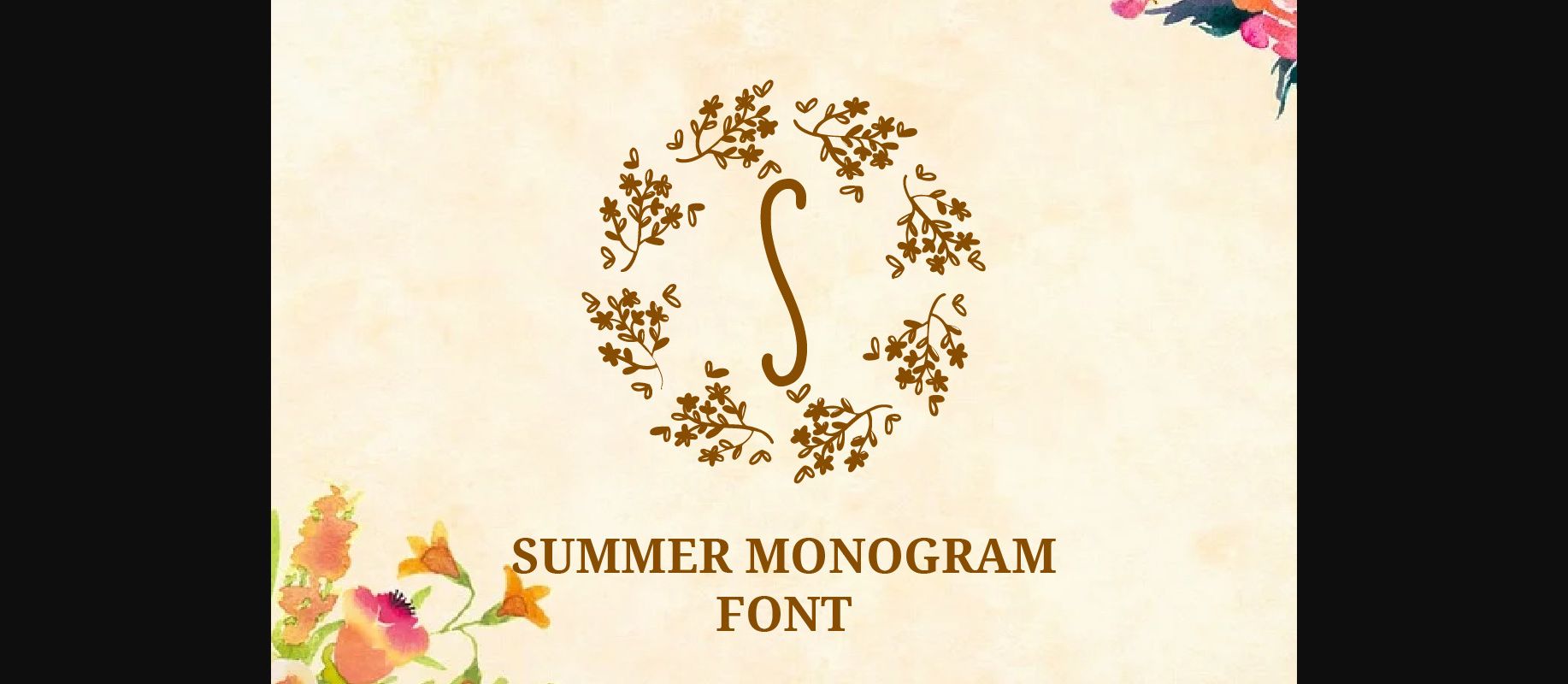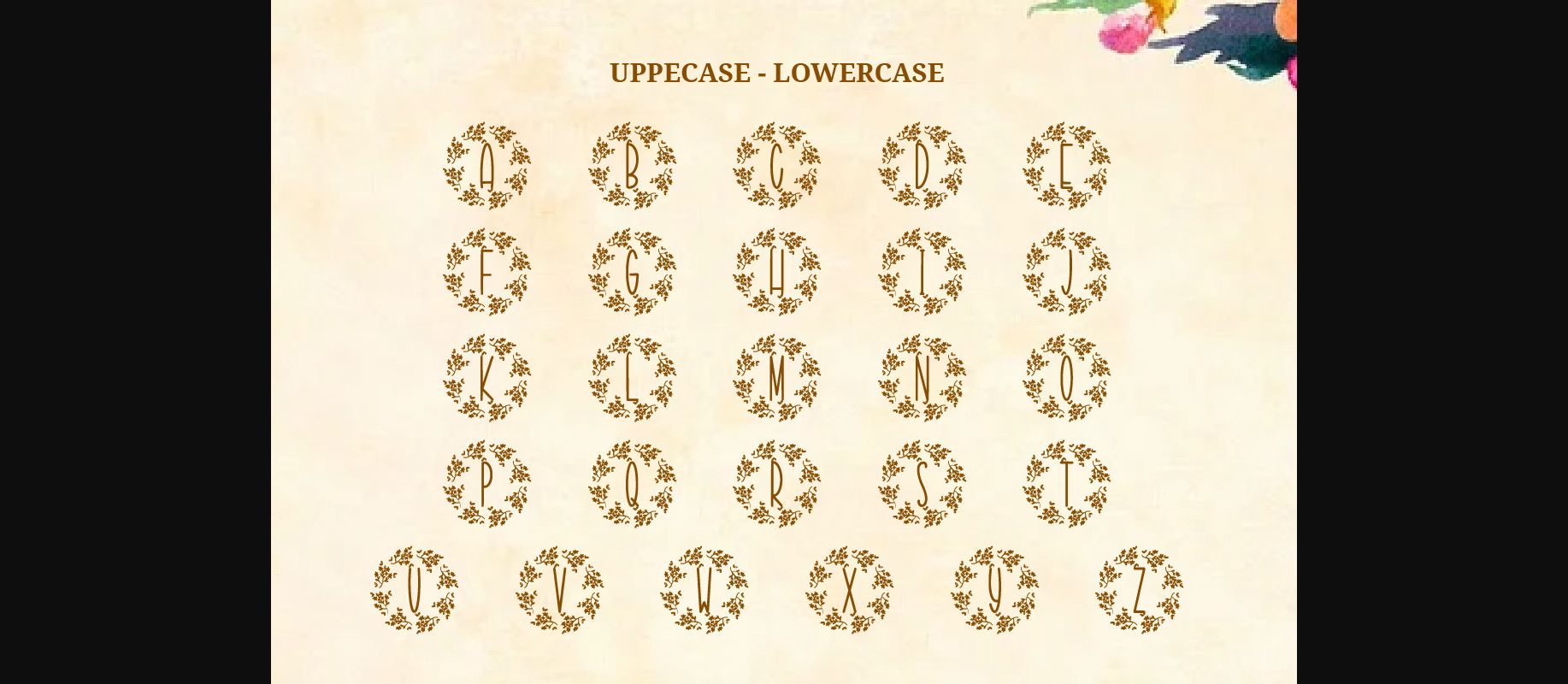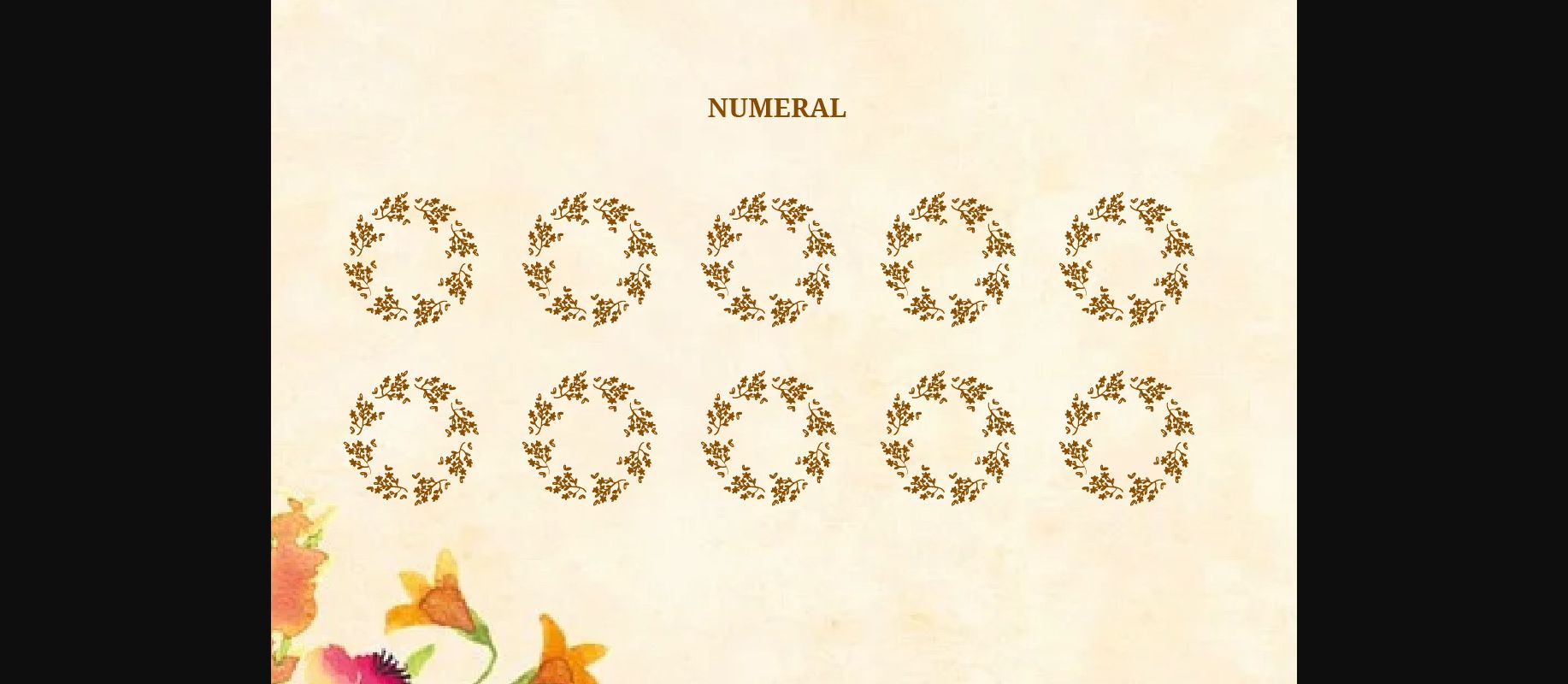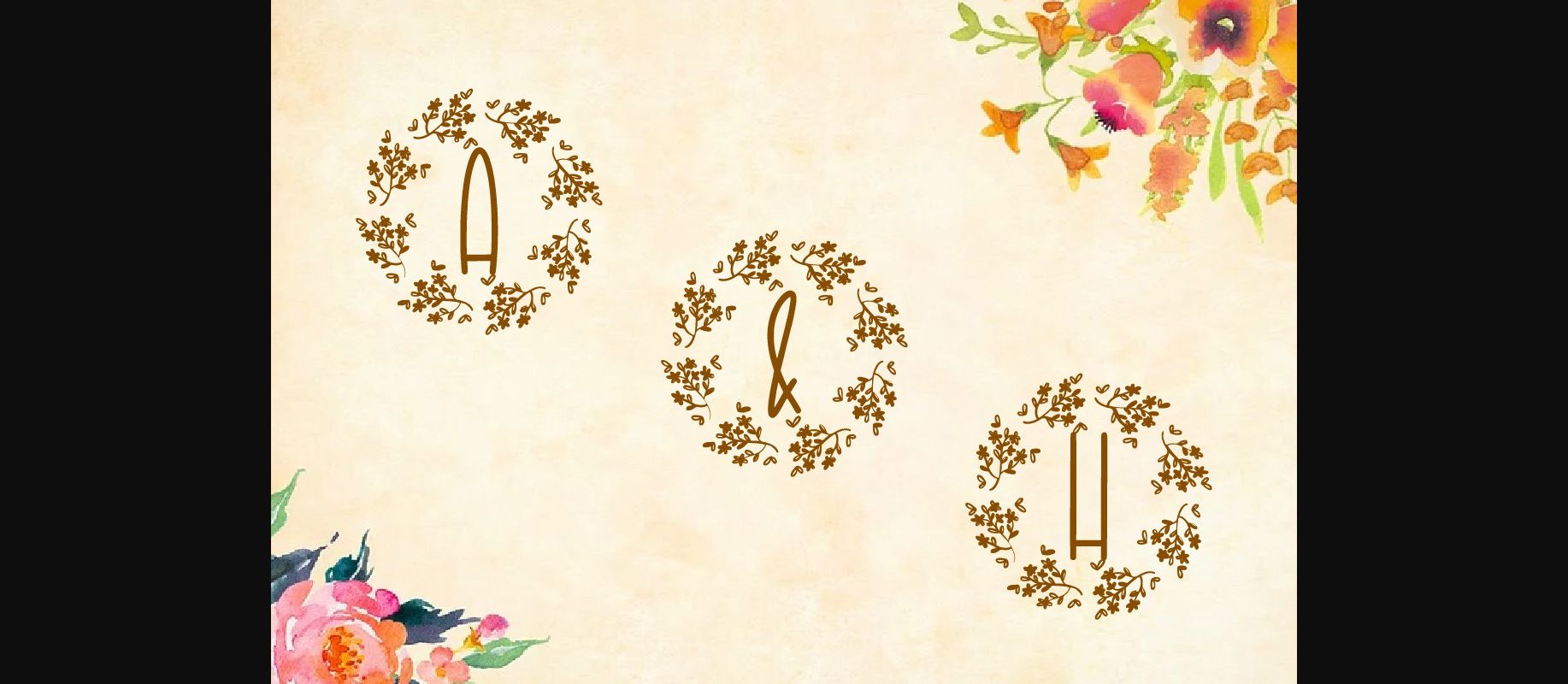
Summer Monogram Font
About Summer Monogram Font
Summer Monogram is a decorative monogram font that can enhance your creative projects such as logos, initials, stickers, wedding invitations, key chains, and more.